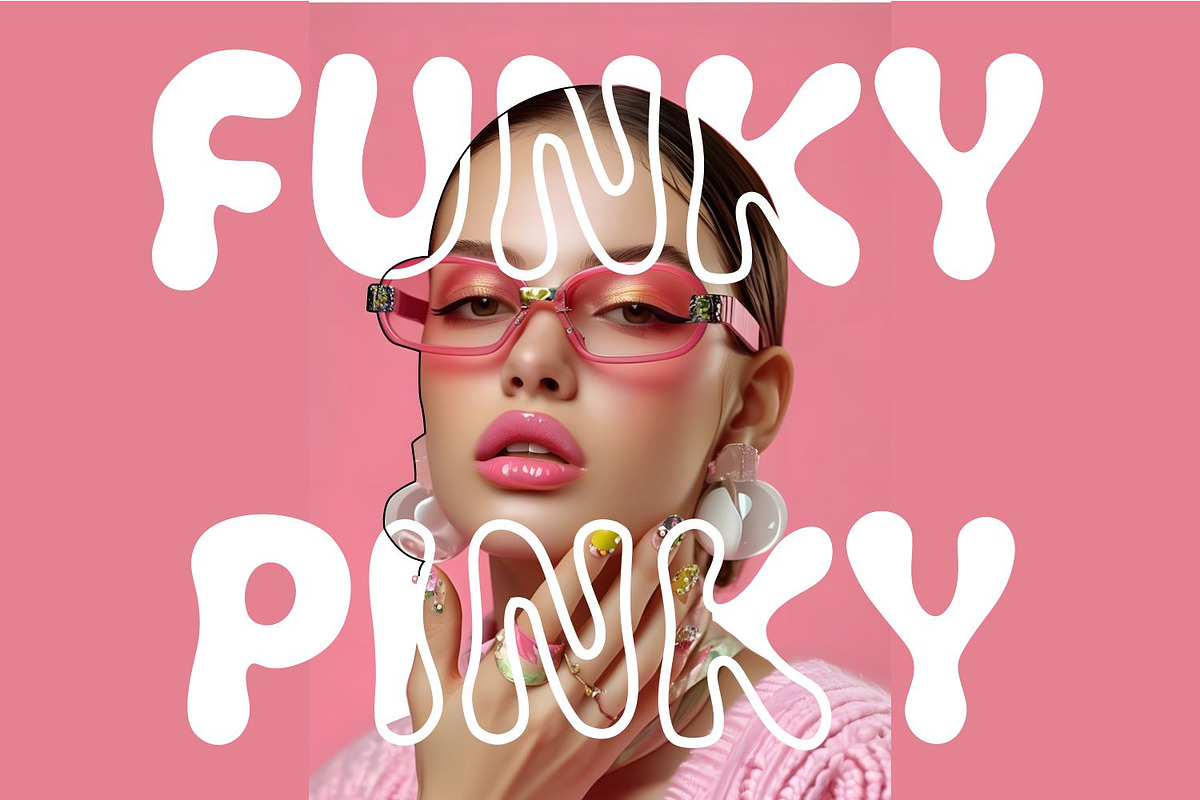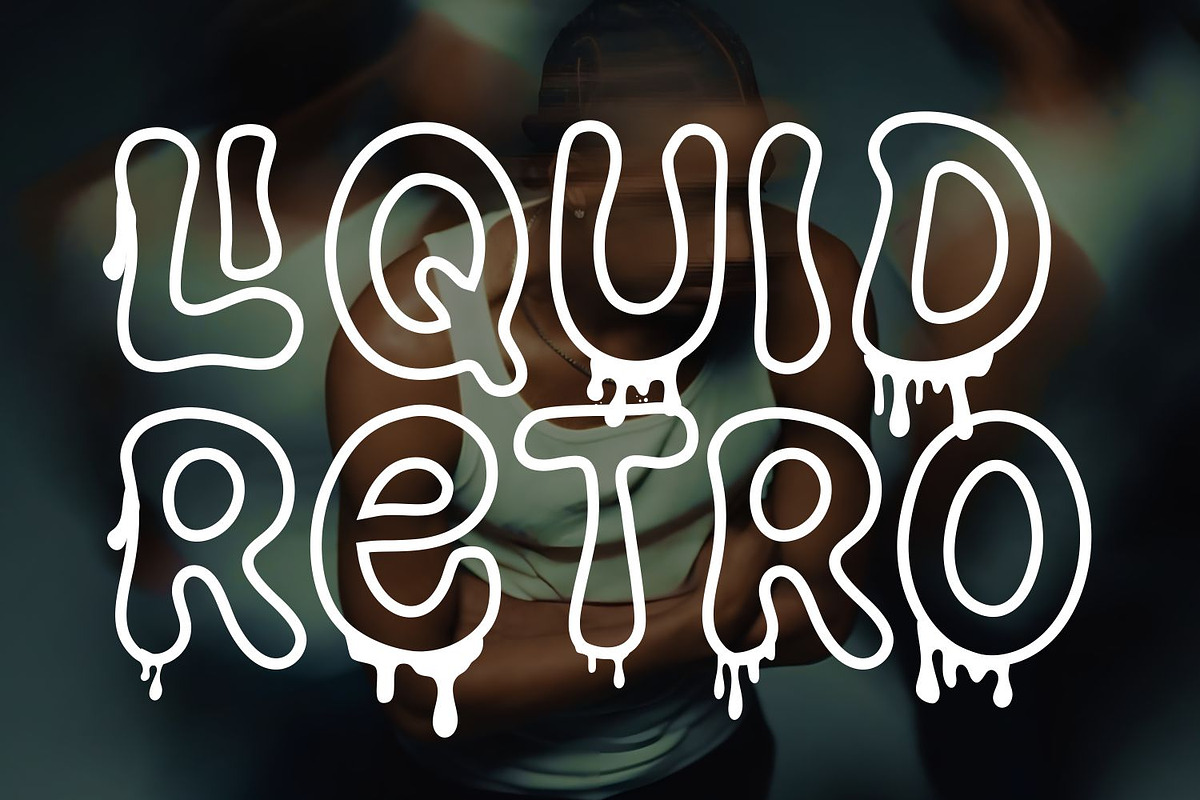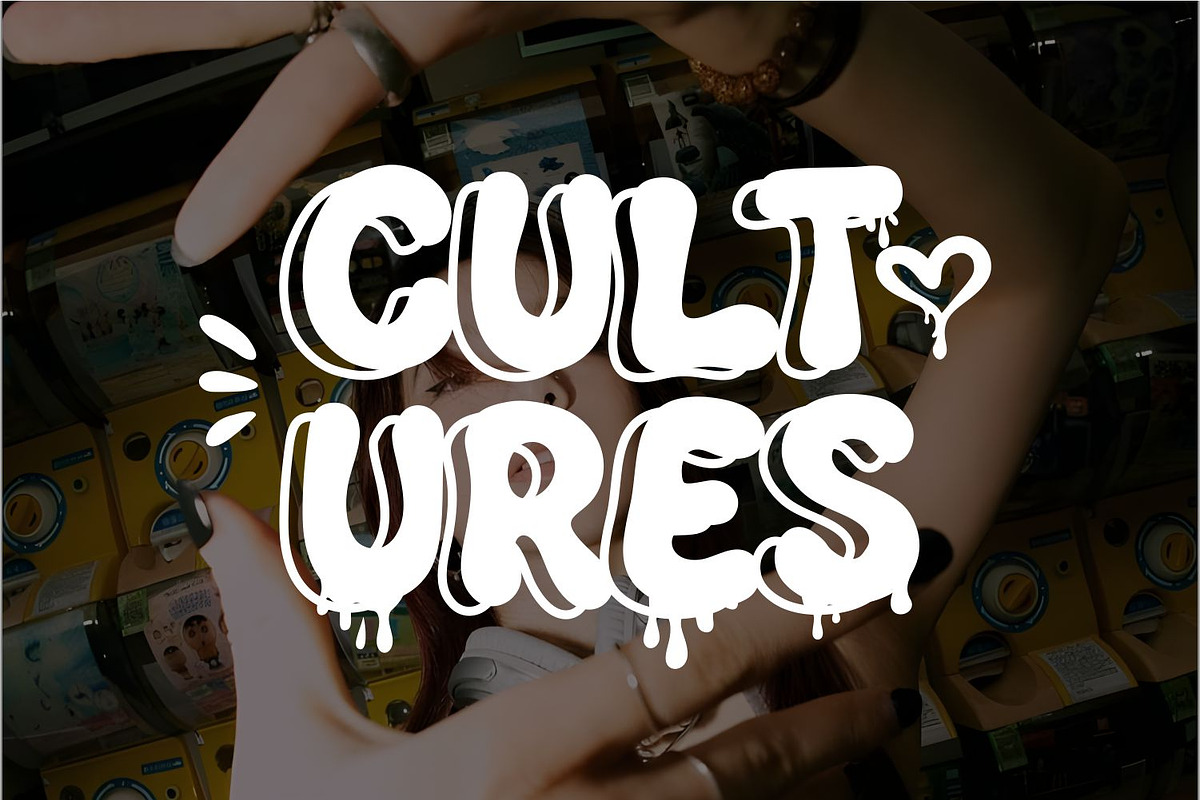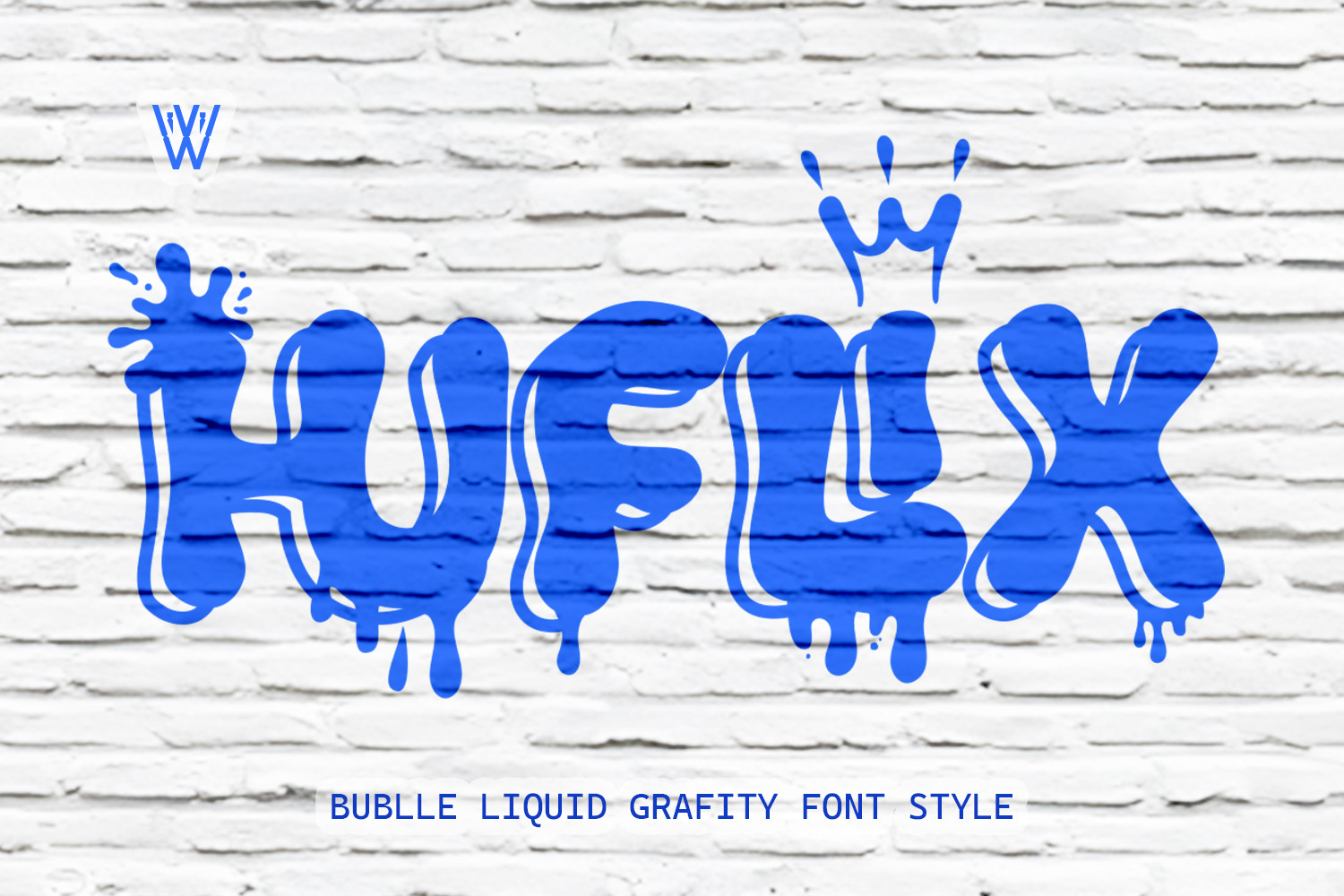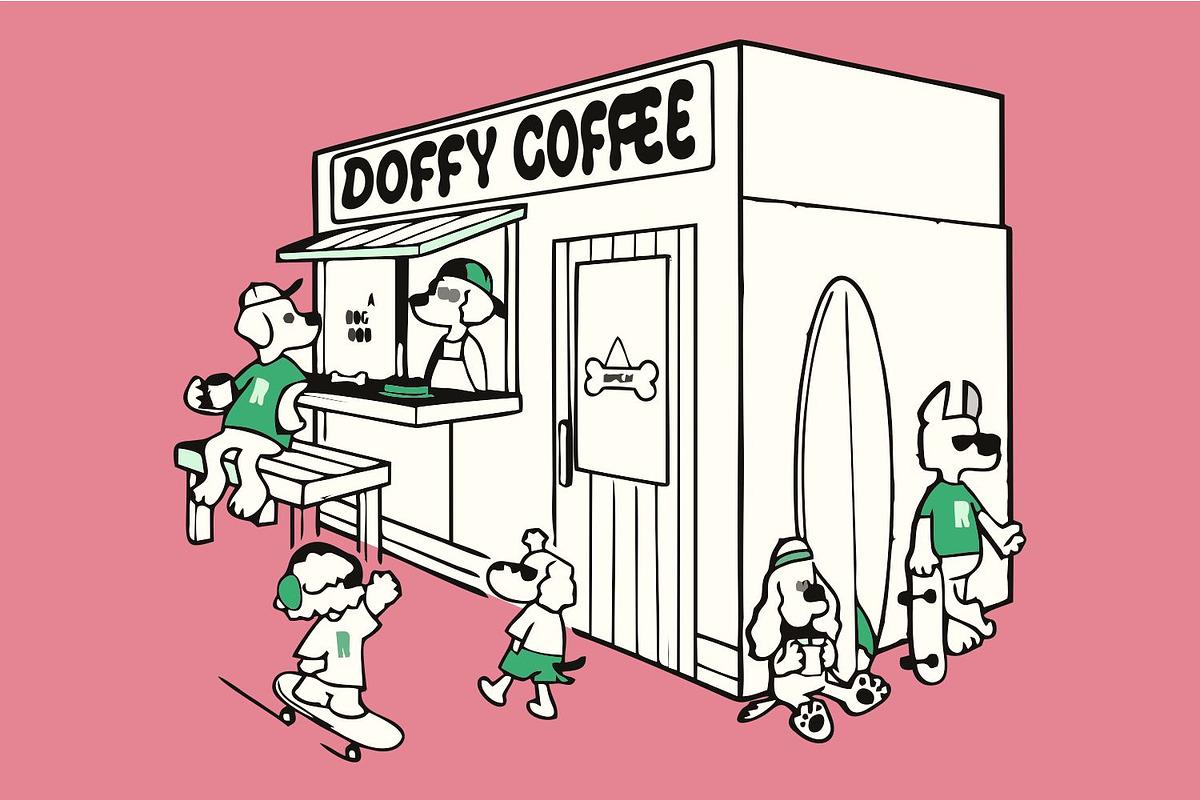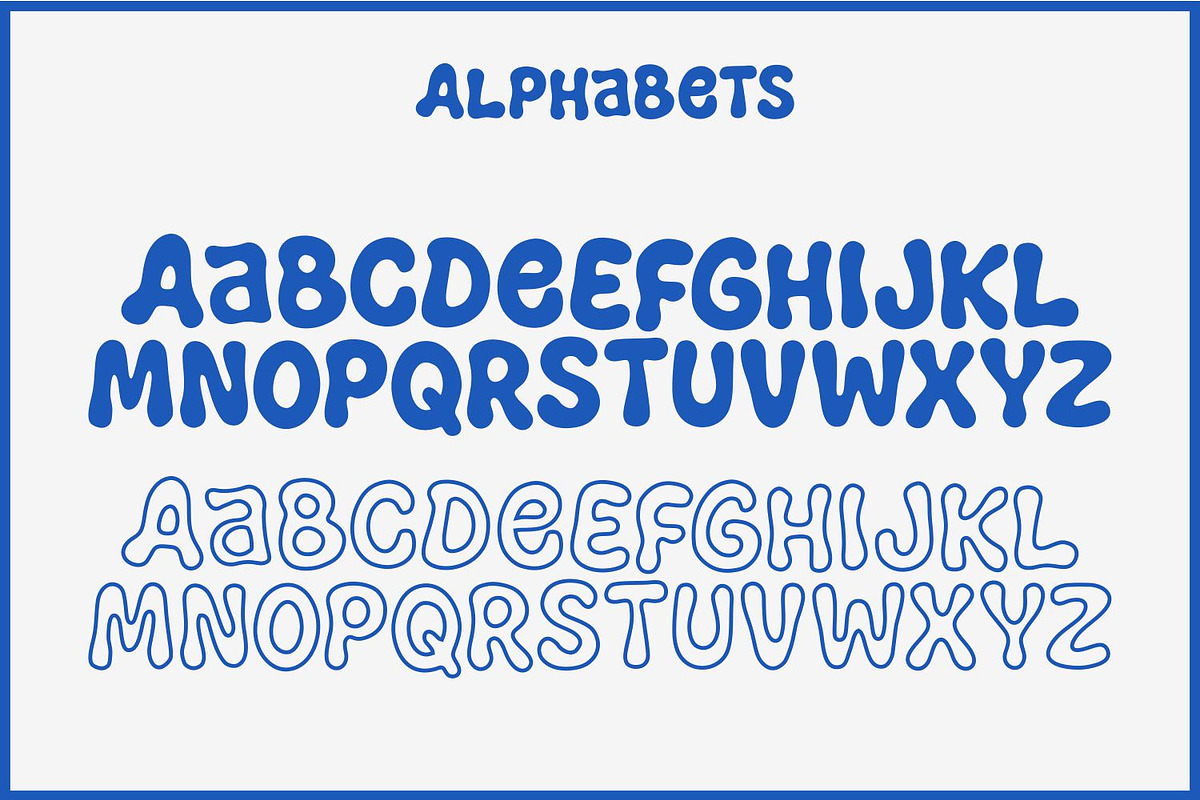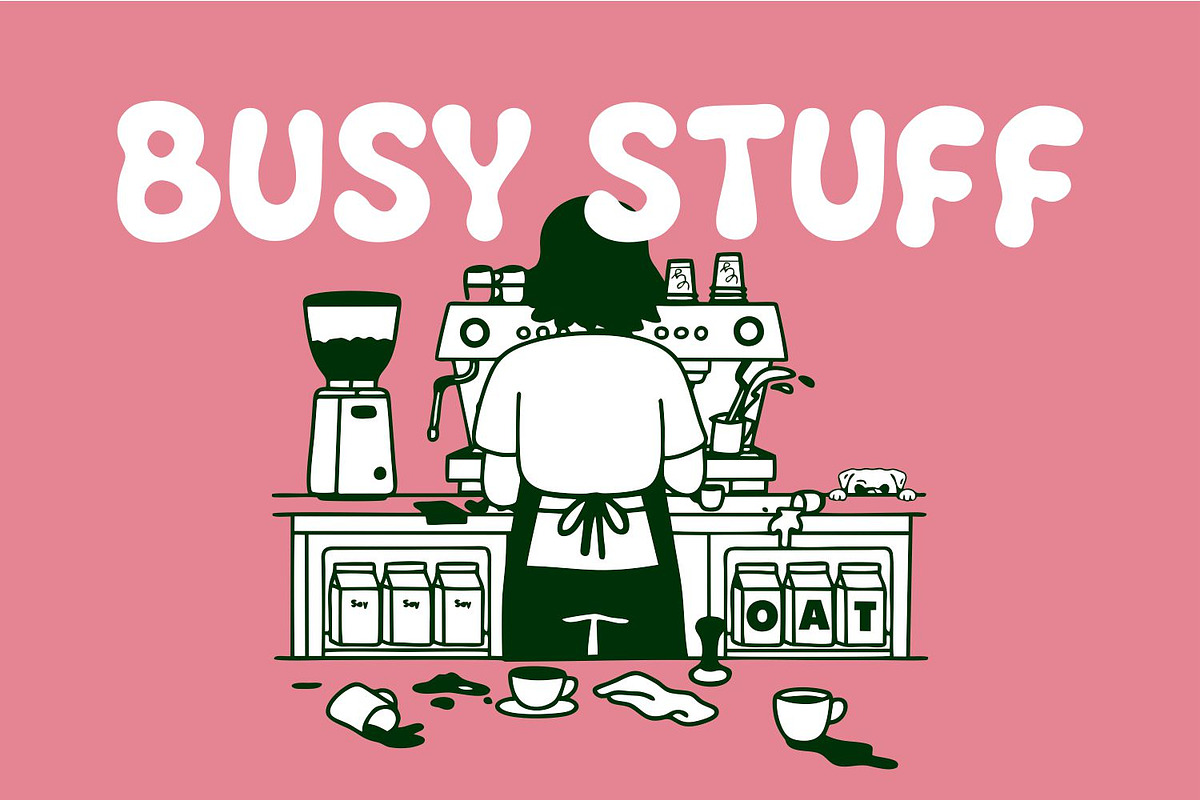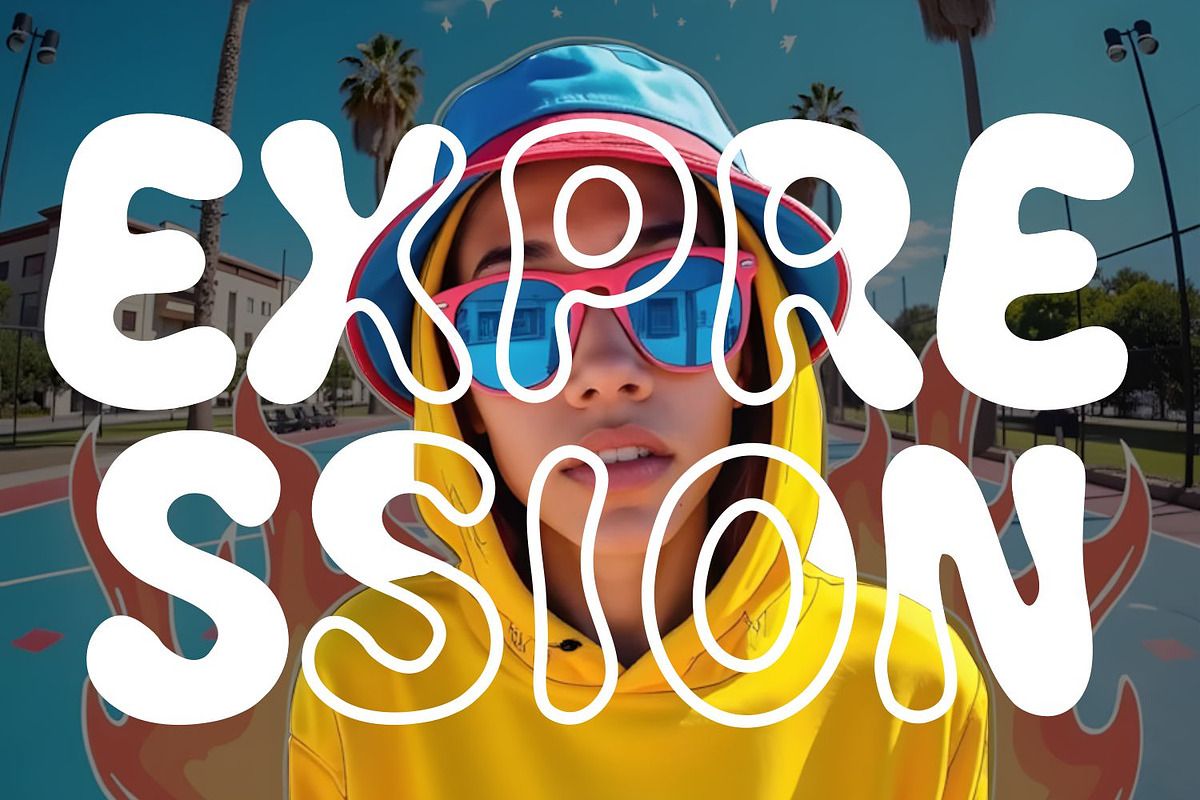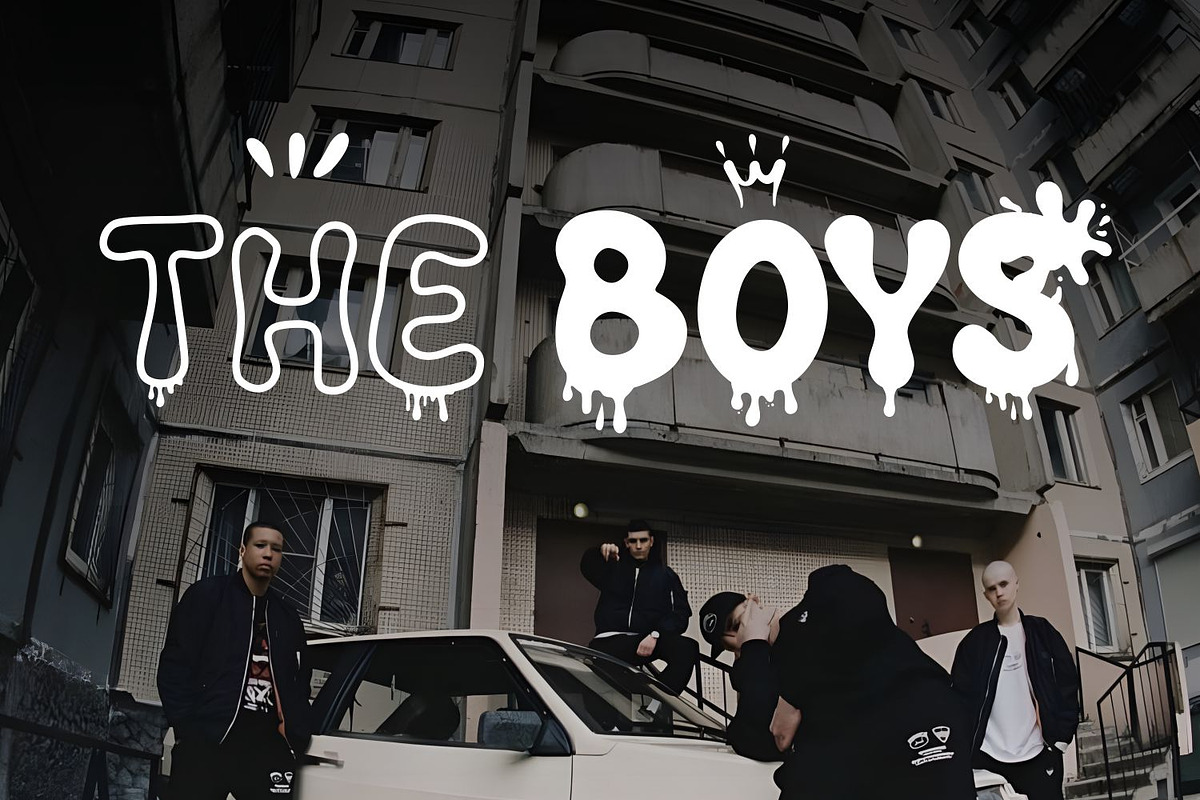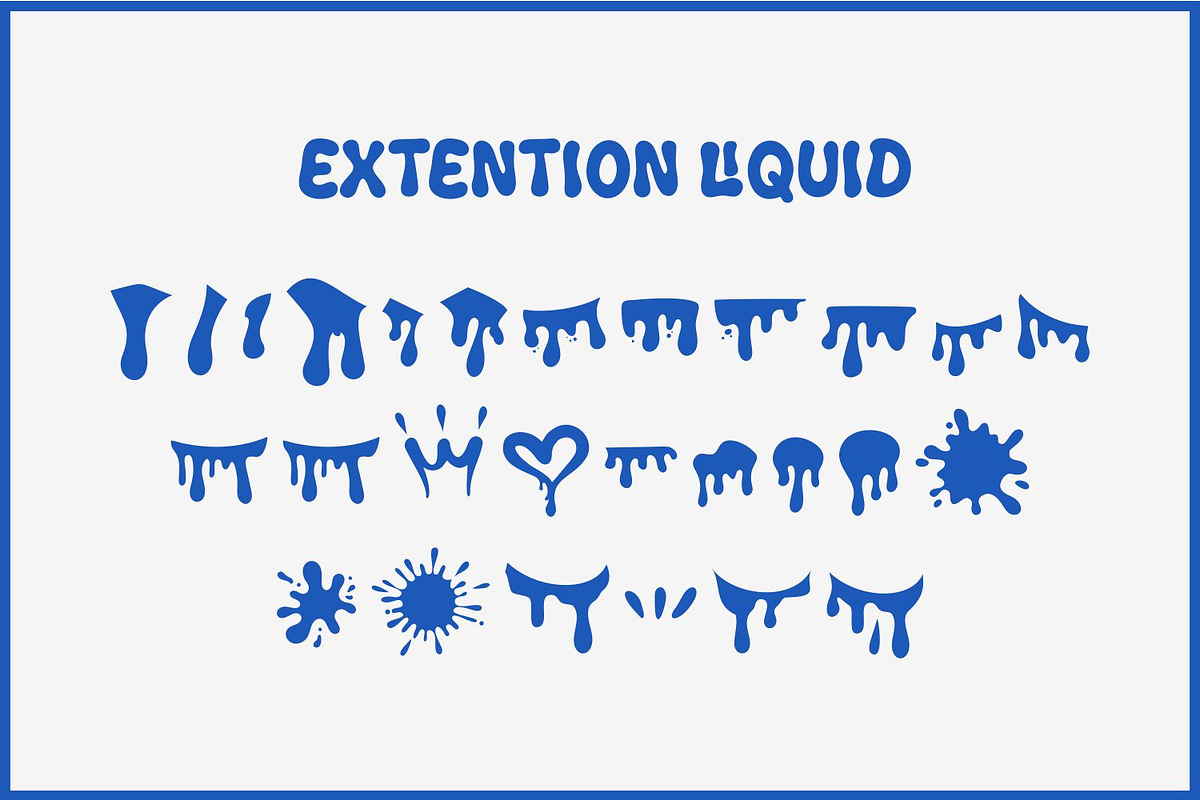
HUFLIX – Playful Bubble Liquid Font
HUFLIX is a bold and playful bubble liquid font designed to bring fun and creativity into your projects. Its smooth, rounded, and fluid shapes make it perfect for designs that need a cheerful, vibrant, and eye-catching touch.
This font is ideal for: Cartoon & comic titles, Party invitations & greeting cards, Branding for playful and fun businesses, Social media posts & YouTube thumbnails, Stickers, posters, and merchandise,
Add a splash of creativity to your work with HUFLIX – the bubble font that flows with fun!